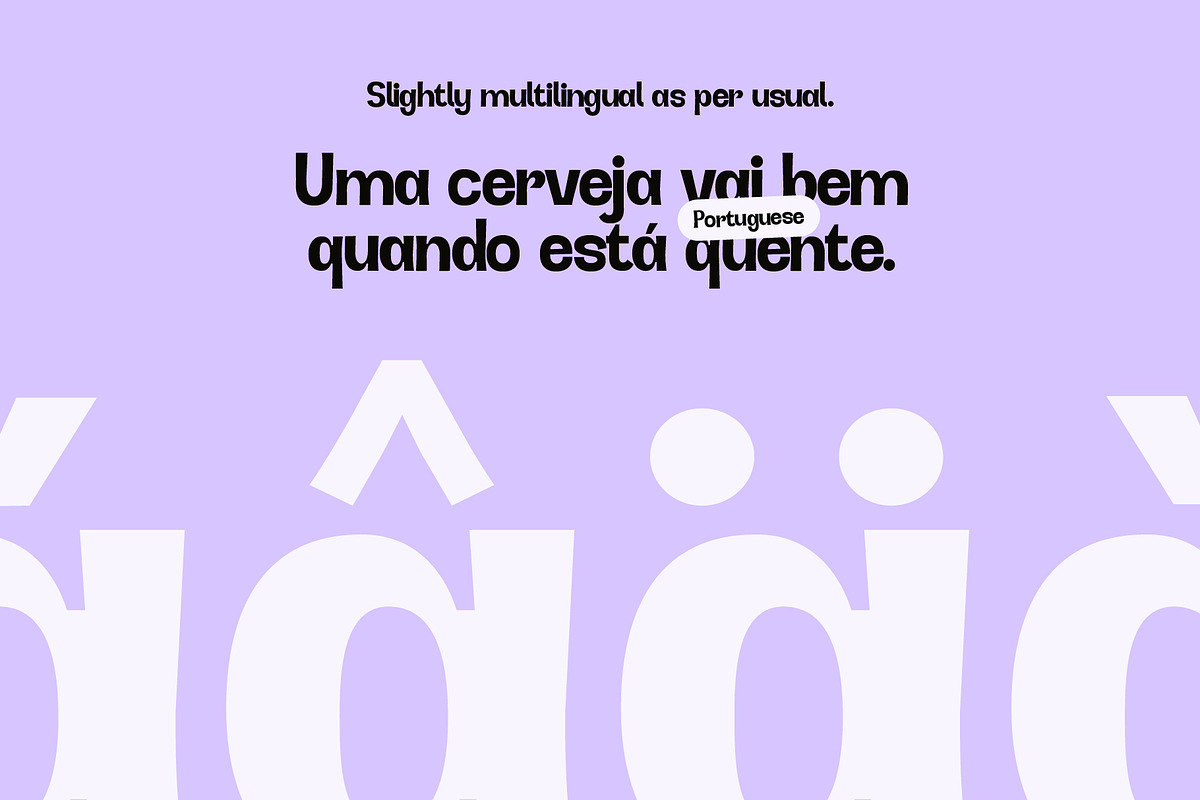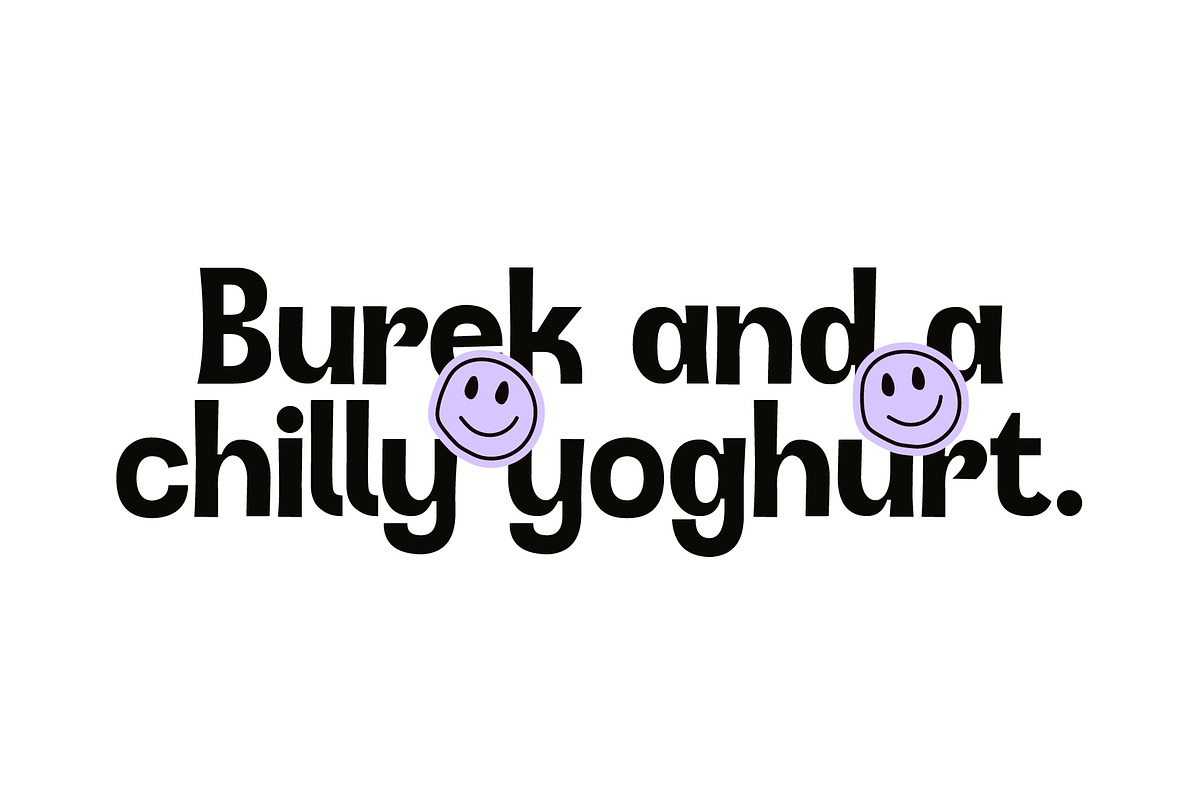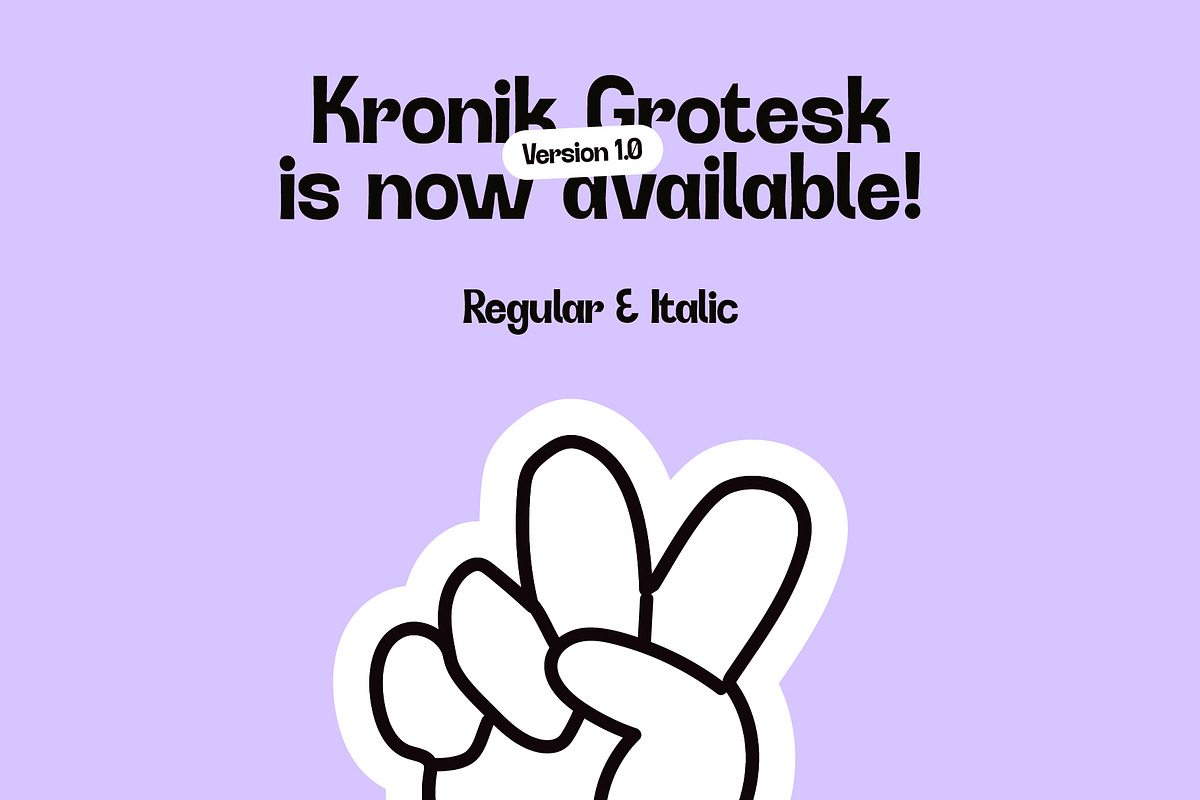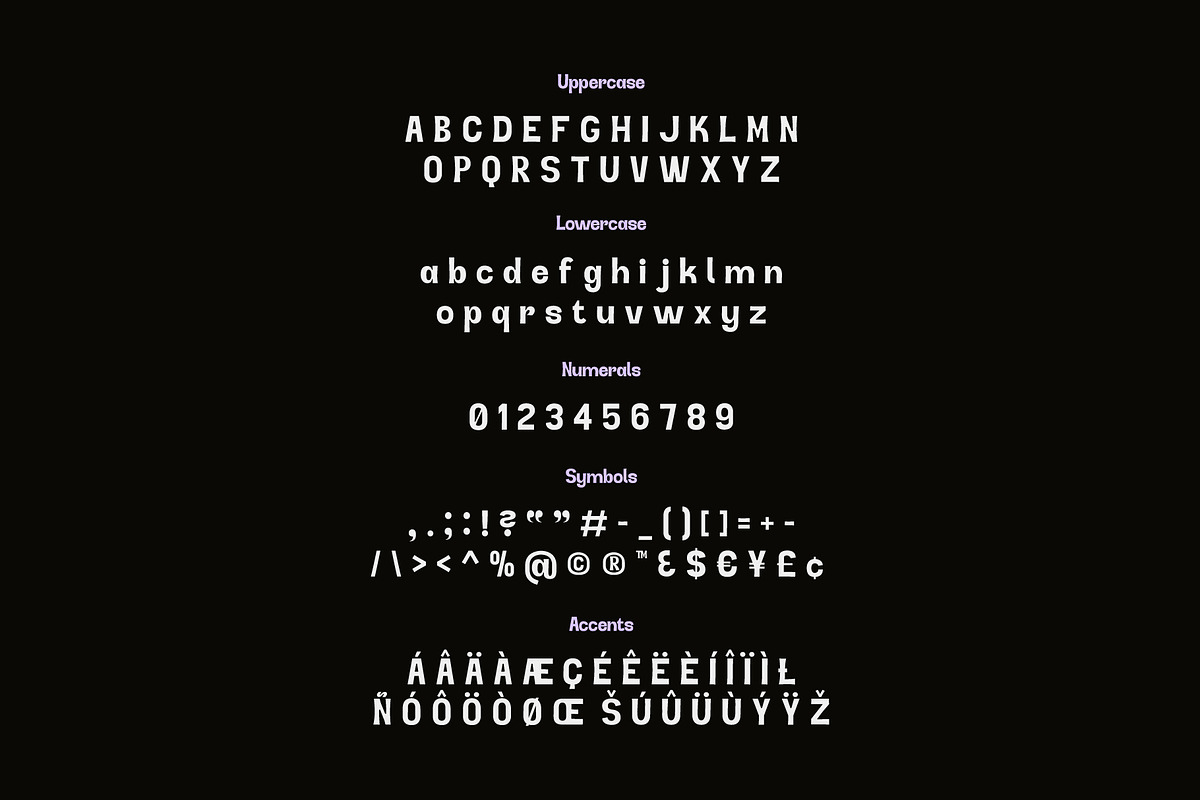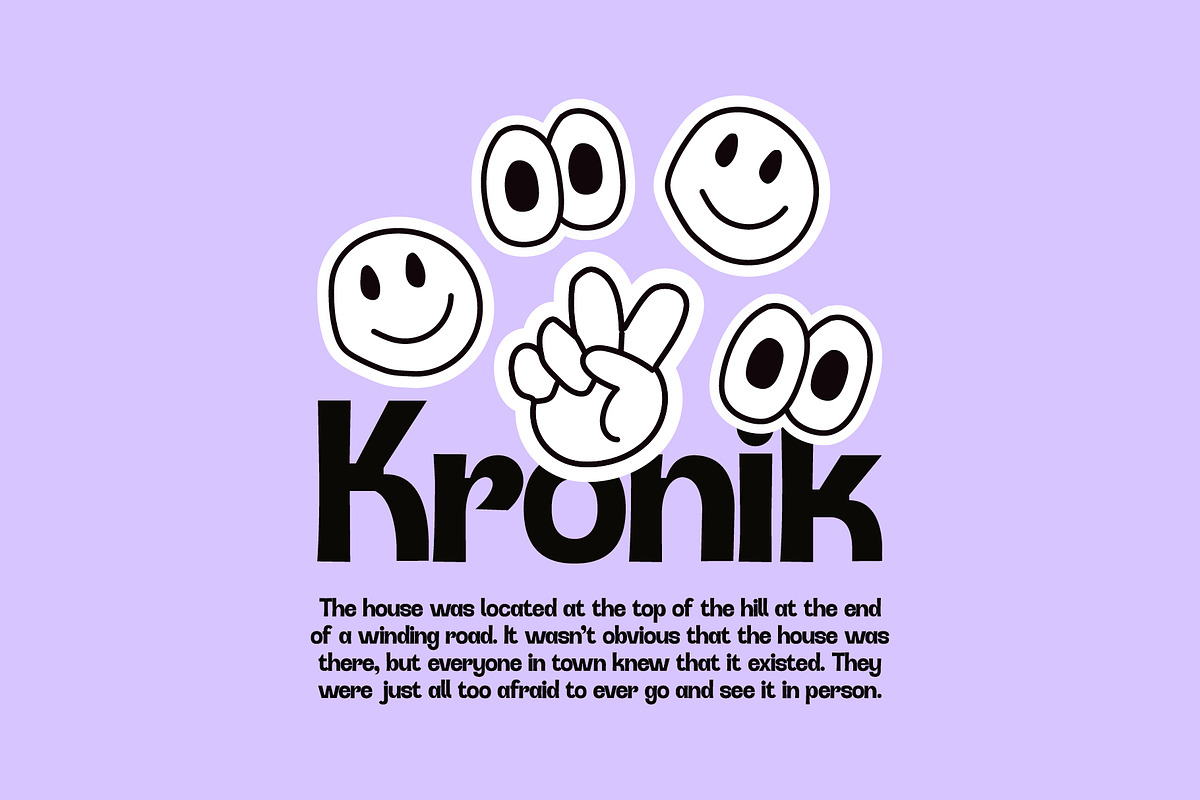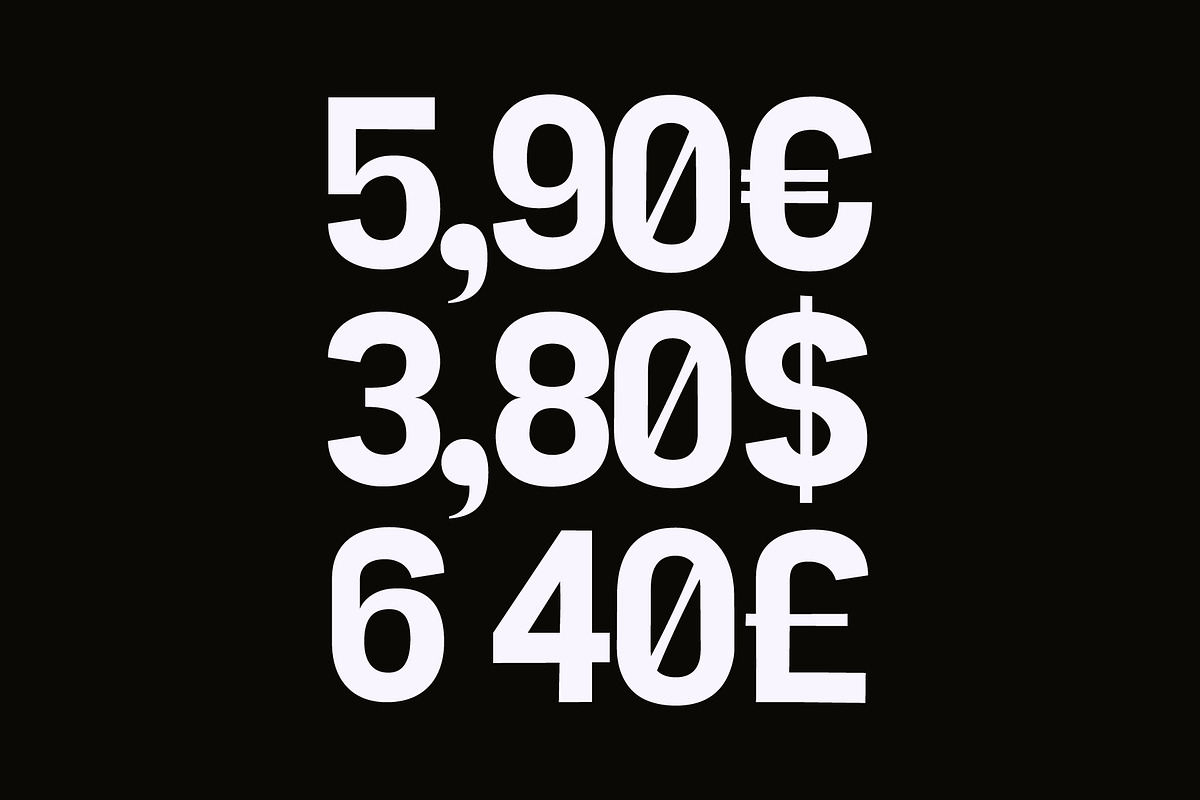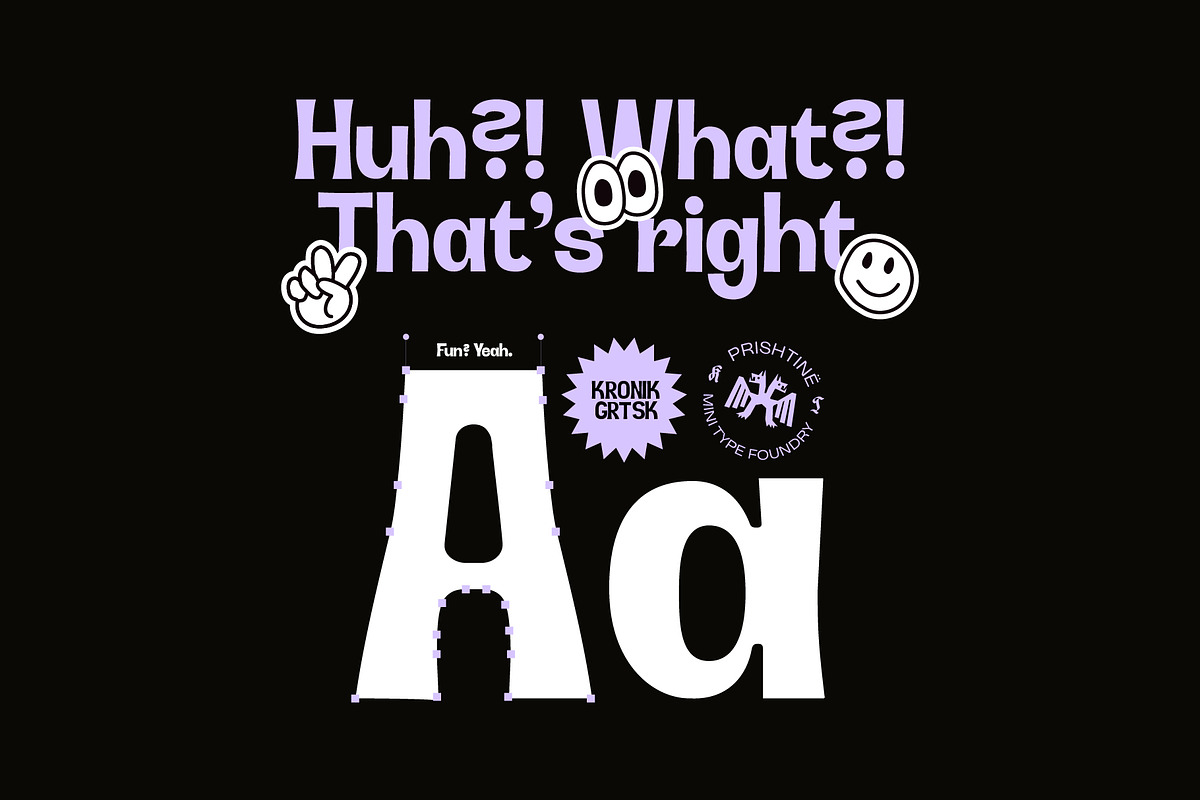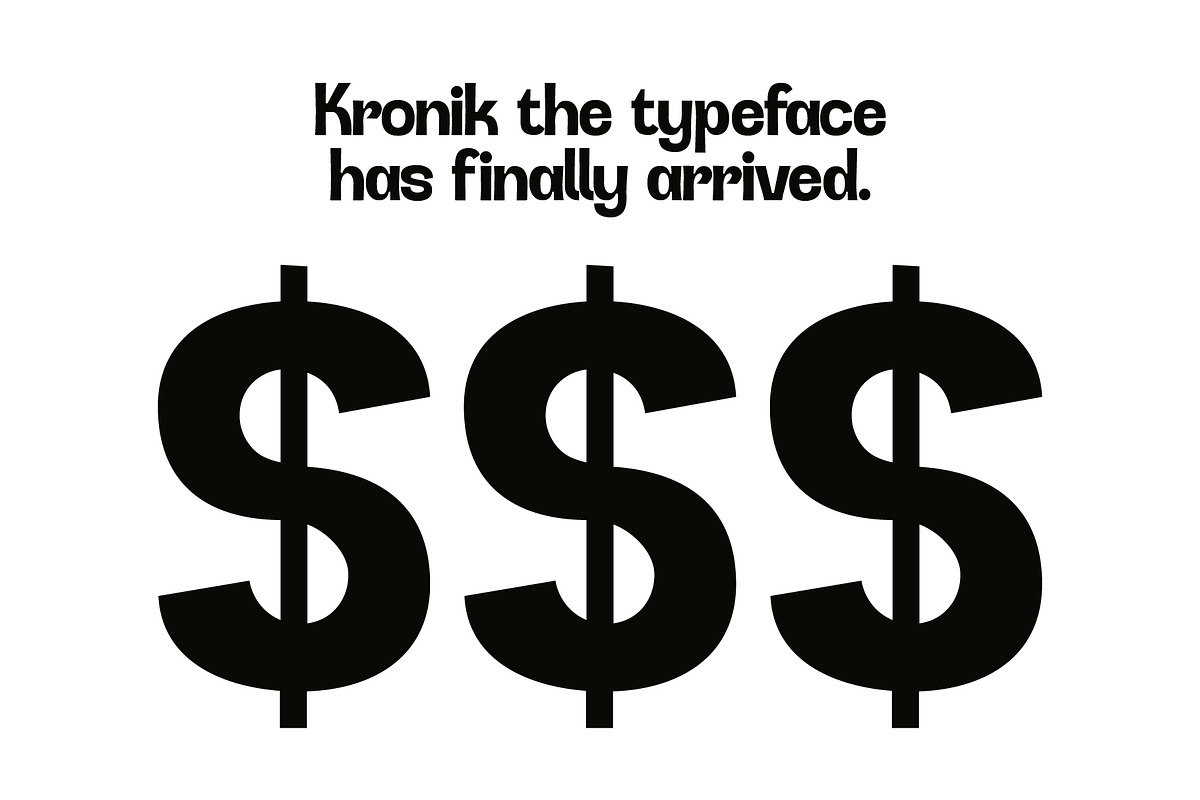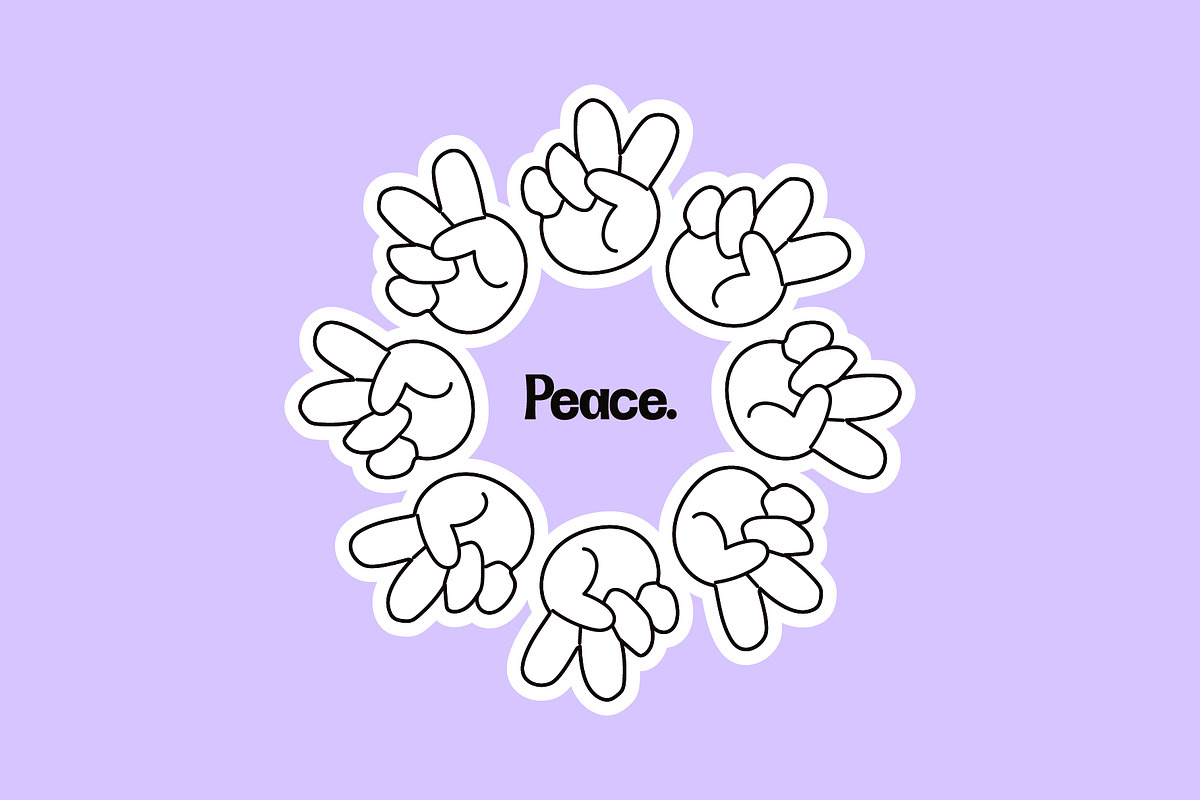
Kronik - Grotesk Type
Kronik has finally been released. The latest typeface to join our roster!
This type has a fun, rough and un-even character to it. It is certainly more on the experimental end with inconsistent shapes, curves and points. Imagined to work lovely on food trucks, rough posters and anything you can really imagine. As much as we love experimenting with types, we love it even more when we see how the types are used in the wild.
Kronik currently has only 1 weight and 2 styles and supports quite a few languages / accents.
From the latest releases, this one is our most experimental by far. We truly hope that you enjoy the type.